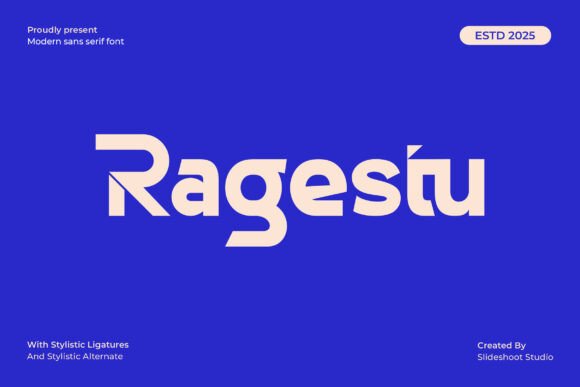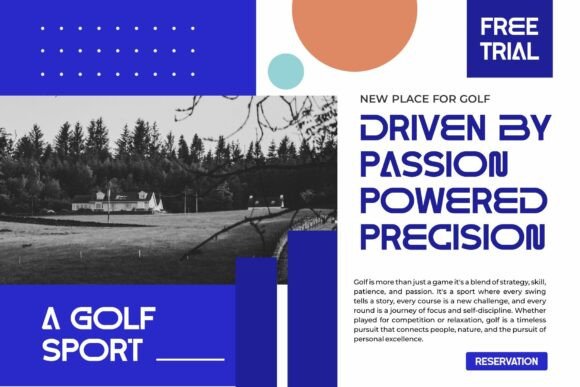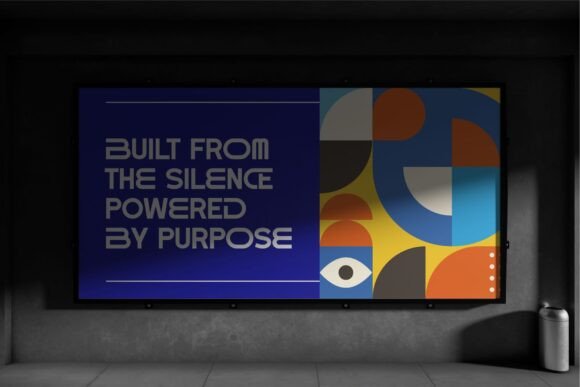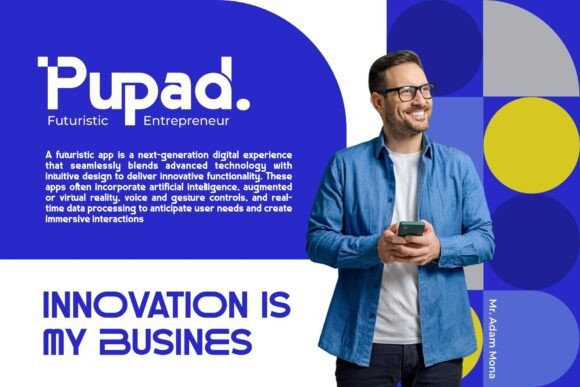
Meet Ragestu | Font, a stunning font that brings a touch of elegance and professionalism to any design. Introducing Ragestu, a sans serif font with futuristic and modern feels. It will be perfectly used for Branding, Logo Design, Lettering, Logotype, Clothing, posters, magazines, packaging, posters, shopping bags, t-shirts, book covers, photography, special events, and other design projects.
Ragestu’s strong geometric forms and sharp lines make it ideal for headlines, logos, and short, impactful text on posters or packaging. Its modern aesthetic is well-suited to tech brands, streetwear labels, or projects emphasizing innovation. Avoid using Ragestu for body copy or lengthy paragraphs; its boldness can become overwhelming and hinder readability in extended text. It also isn’t well-suited for user interfaces requiring high legibility.
To complement Ragestu’s futuristic feel, consider pairing it with a clean sans-serif like Open Sans for body text or a contrasting serif like Merriweather for a touch of classic elegance. For a more playful approach, a rounded sans-serif like Lato could soften its angularity.
Ragestu’s overall personality is bold and modern, conveying a sense of confidence and forward-thinking design.